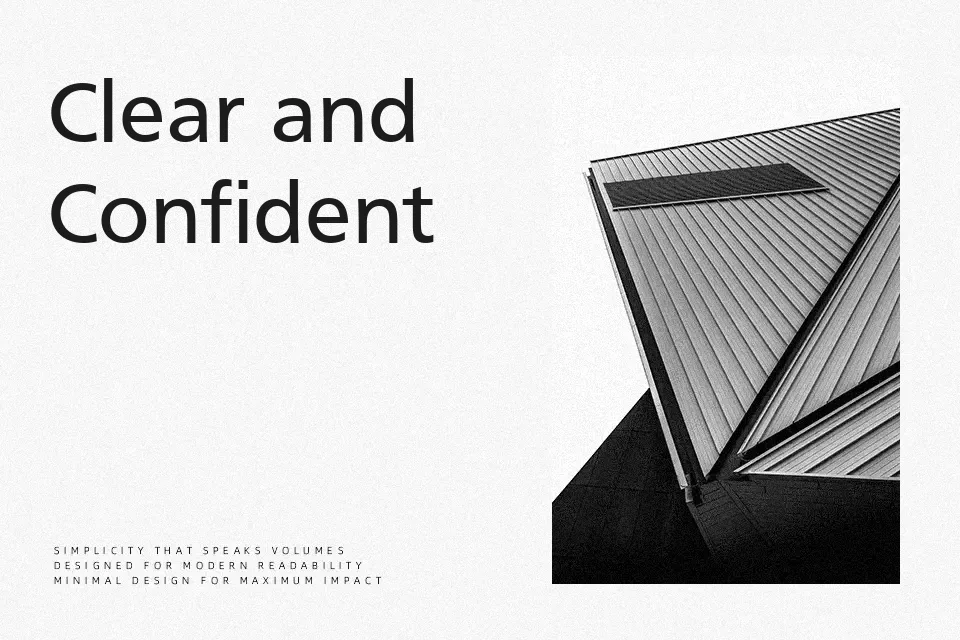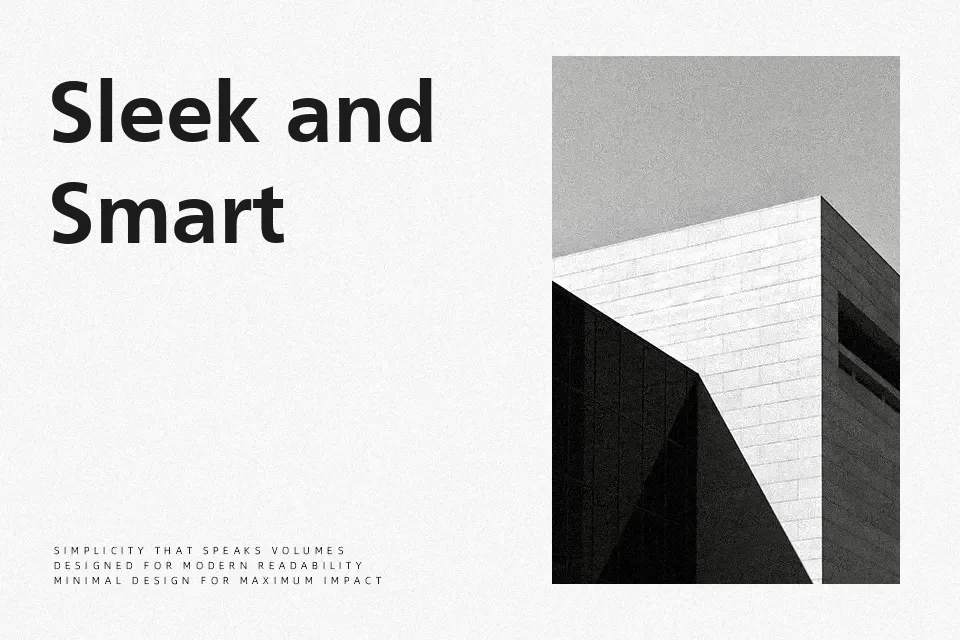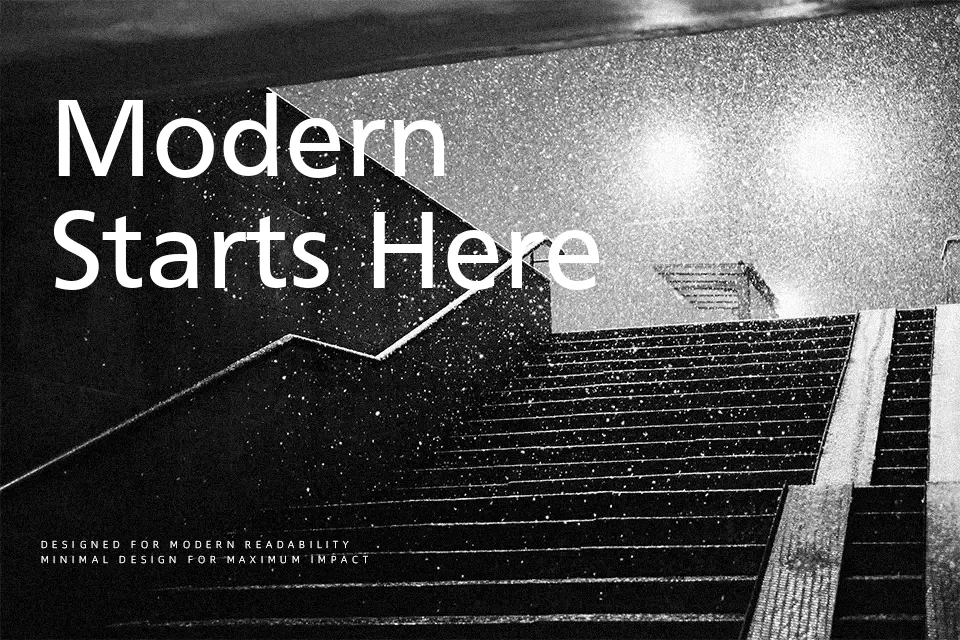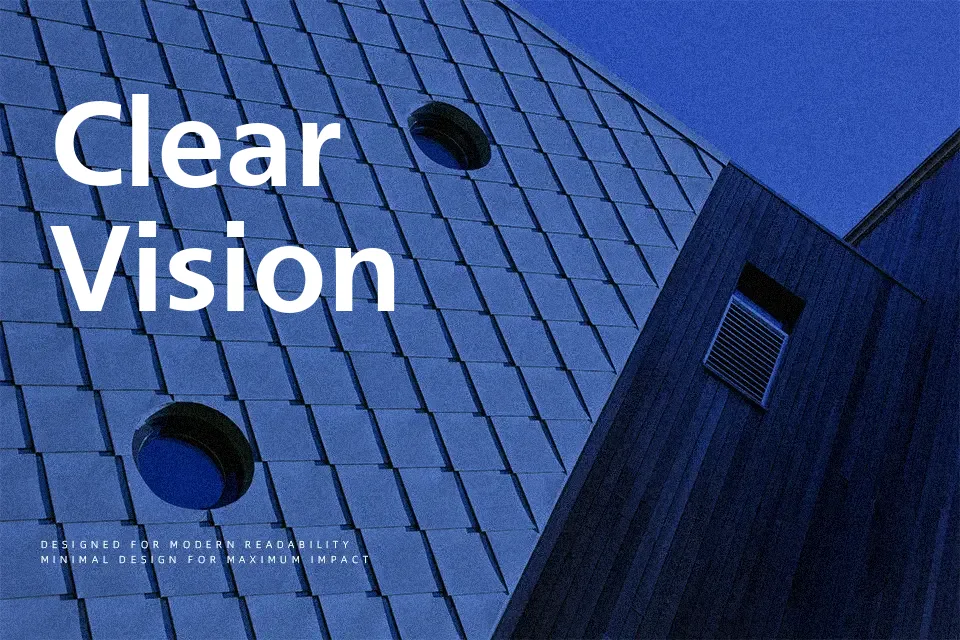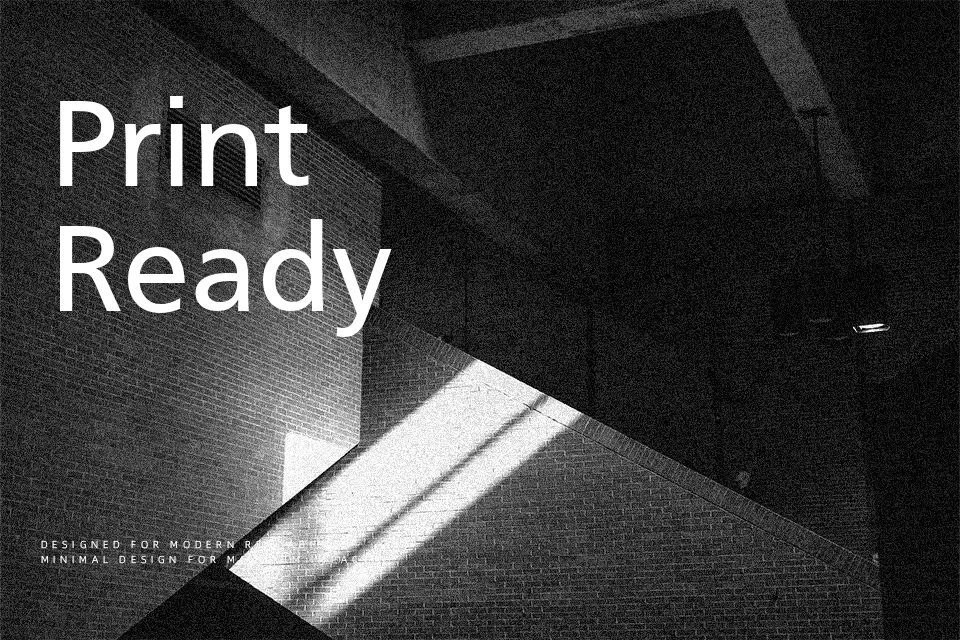
Frutiger Font
Designed by Adrian Frutiger
If there is a gold standard for public wayfinding typography, Frutiger Font holds the title. Designed by the legendary Adrian Frutiger in 1968 for the Charles de Gaulle Airport in Paris, this humanist sans-serif masterfully balances strict geometric logic with open, organic apertures. The wide letterforms, prominent ascenders, and distinctly spacious counters ensure immediate legibility, even from a distance or at severe angles.
This functional superiority makes the typeface absolutely brilliant for high-traffic environments, such as subway signage, hospital directory boards, and large-scale corporate identities. Conversely, because of its highly clinical and utilitarian nature, it feels entirely inappropriate for romantic wedding invitations or vintage boutique branding, where a more decorative or personal touch is required. It remains a timeless monument to functional Swiss design.
– airport and subway signage
– corporate brand identities
– public information systems
– medical directory boards
– romantic wedding invitations
– vintage boutique logos
– playful children’s books
Perfect for branding, editorial, and headline, with a clean and geometric style.